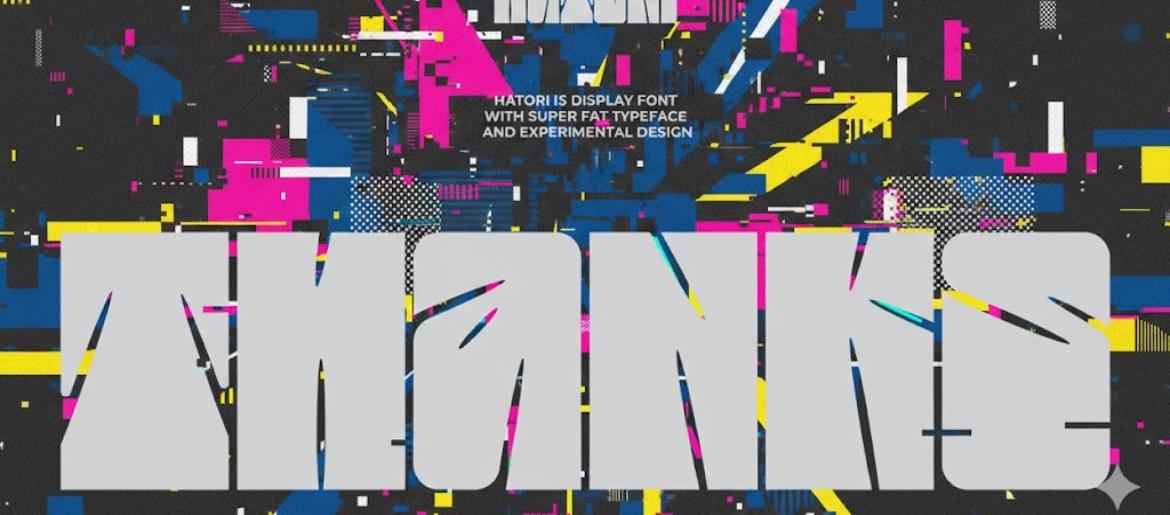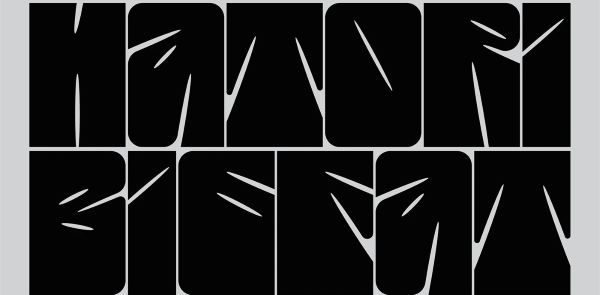
Hatori Font
Hatori Font is an extra-bold, condensed display typeface built for maximum impact. With its sharp edges, aggressive stance, and modern structure, it’s perfect for posters, headlines, logos, and striking branding. Hatori delivers a powerful, high-energy look that commands attention and adds a fierce, contemporary edge to any design.
➤ Font Name: Hatori
➤ Designer: Limitype
➤ Style: Display